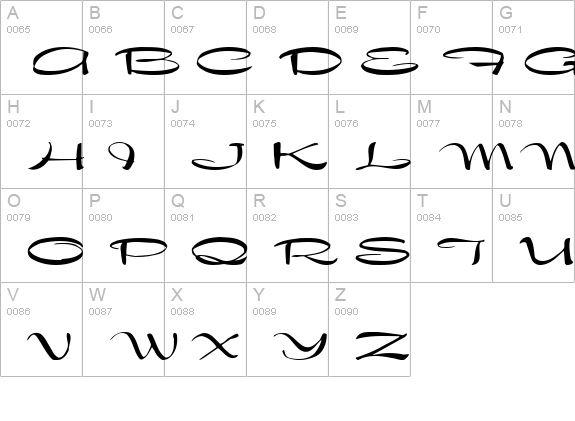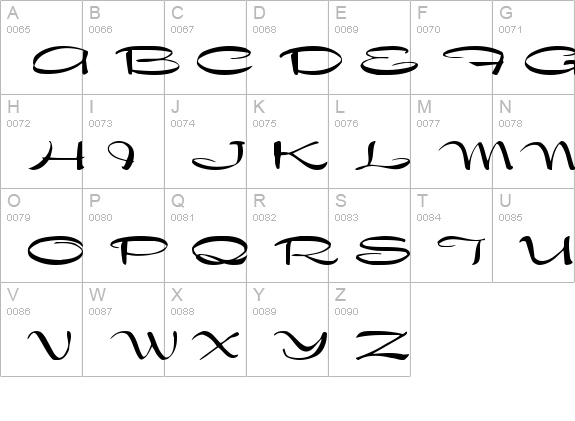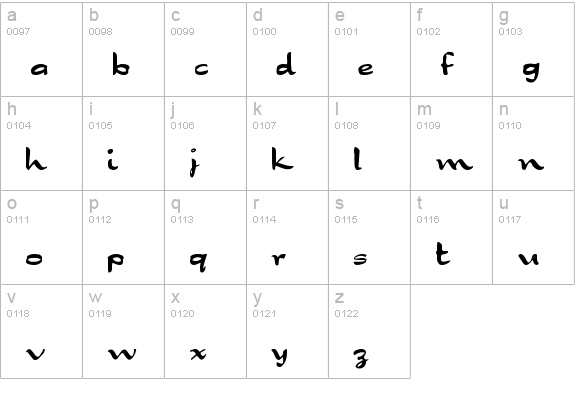
Dragonwyck Normal is the standard, neutral variant in the Dragonwyck typeface family \xE2\x80\x94 well suited to general body text, paragraphs, and standard typographic work.
Dragonwyck Normal font is a versatile and elegant typeface that exudes a timeless charm. With its classic yet modern design, this font is perfect for a wide range of projects, from branding to editorial design. The clean lines and balanced proportions of Dragonwyck Normal make it easy to read across different mediums, while still retaining a touch of sophistication. Best of all, Dragonwyck Normal is available for free download at FontsMarket.com, making it accessible to designers and creatives looking for a high-quality font without breaking the bank. Whether you're working on a print project or a digital design, Dragonwyck Normal is sure to elevate your work with its refined aesthetic and effortless style.